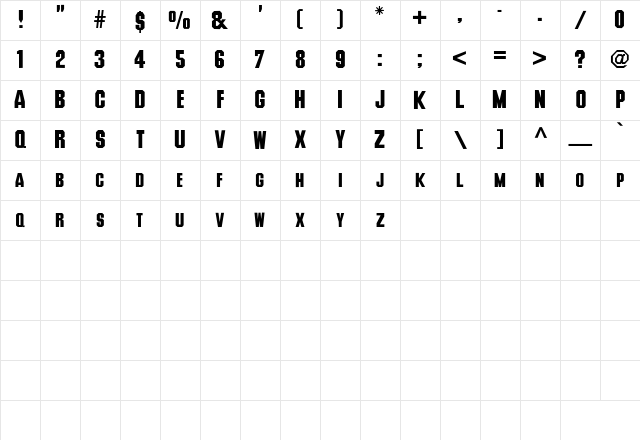
RSDeusex Regular Free Font
RSDeusex Regular
Design Context for RSDeusex
RSDeusex is a composed and adaptable typeface that performs quietly and consistently across a wide range of design contexts.